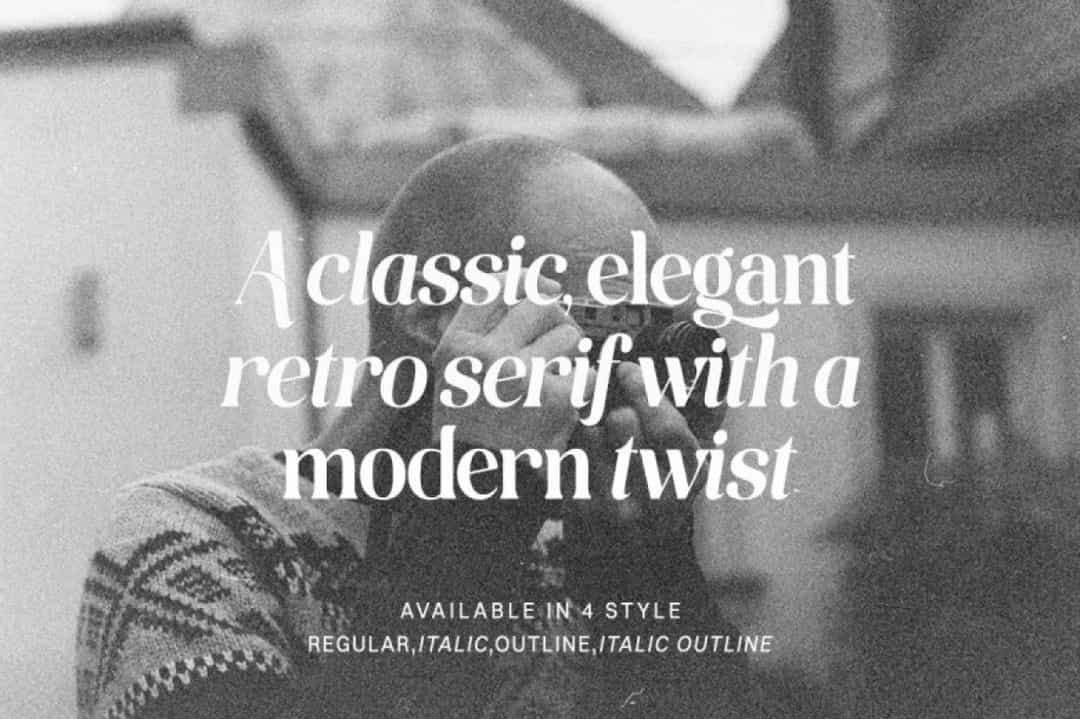
Hella Instegra is an elegant serif font featuring retro and modern influences, providing layouts suitable for 70s or 60s design projects. With more than 150 distinct alternate characters and 59 ligatures to use in projects that will give them that authentic vintage appearance; plus Italic and Outline versions too for extra vintage character! This font makes an excellent vintage font!